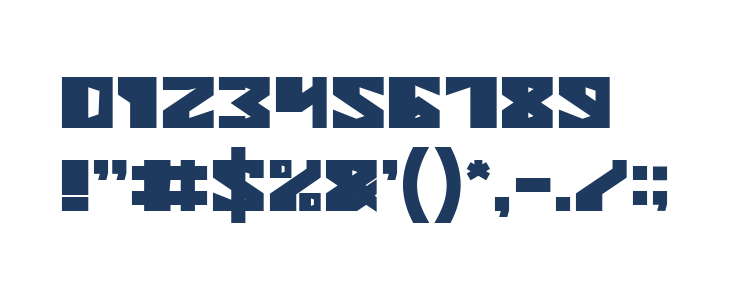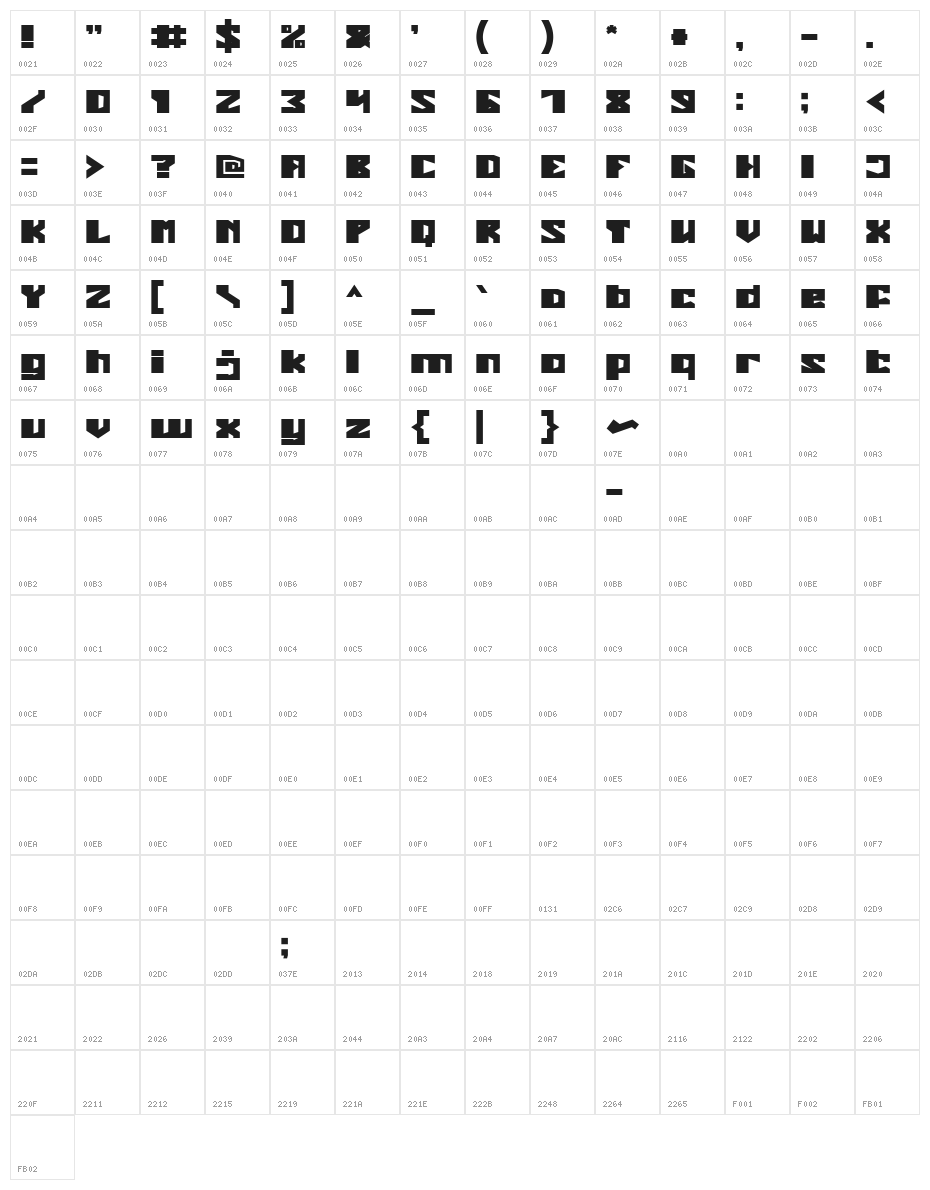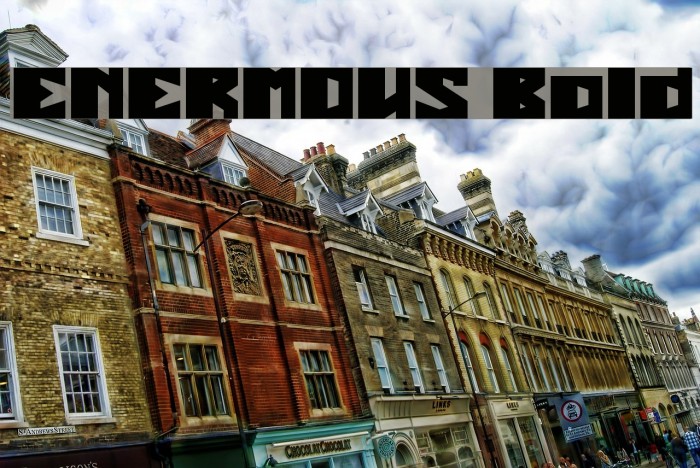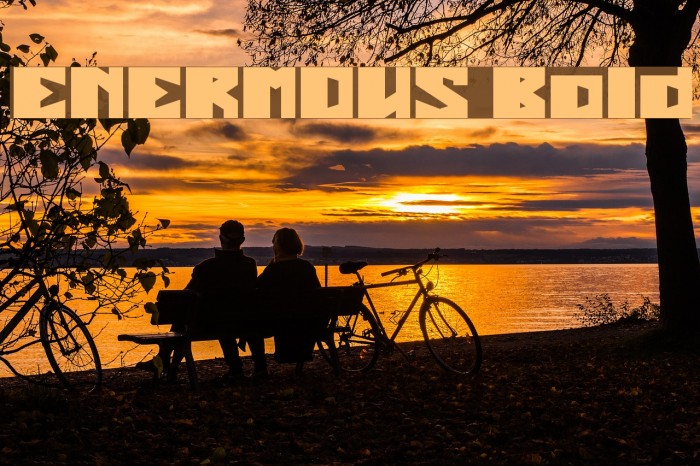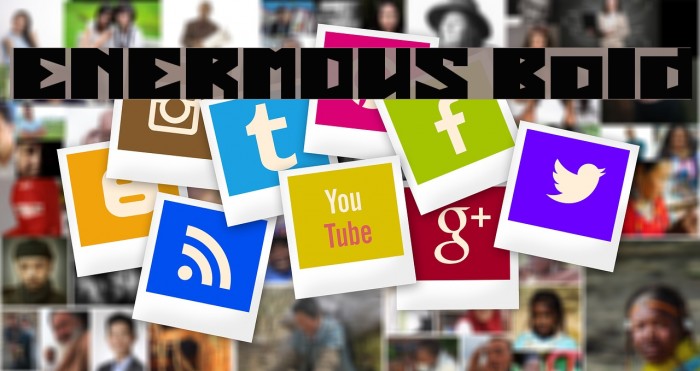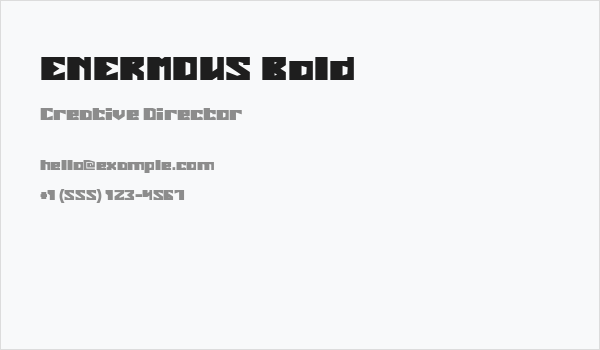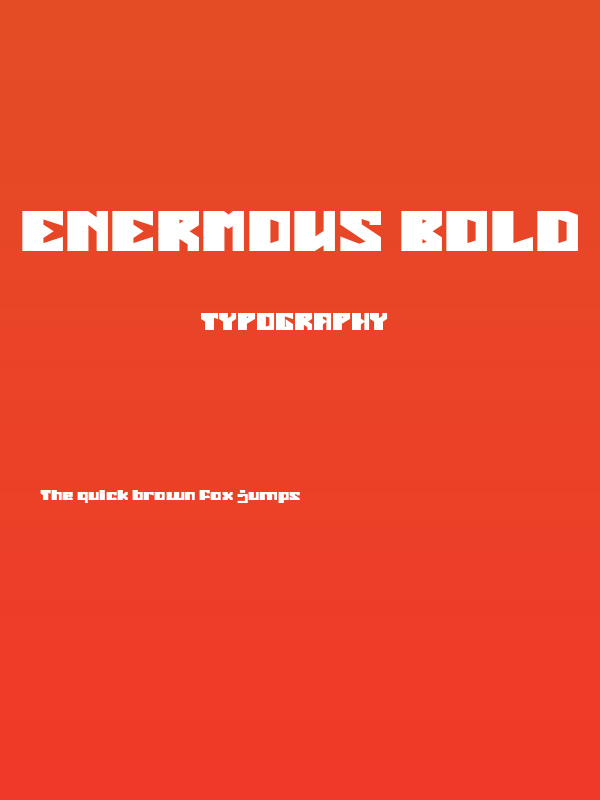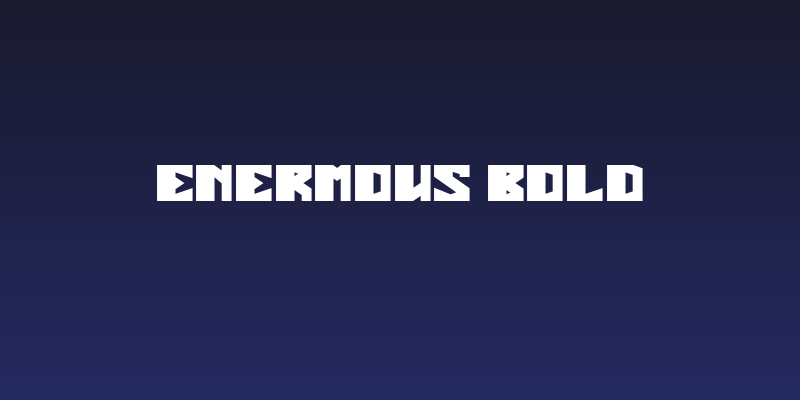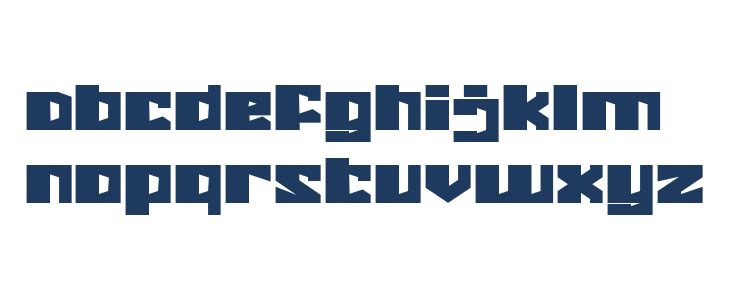
ENERMOUS Bold Font
ENERMOUS Bold Description
This font features a bold, geometric design with sharp angles and a blocky appearance. The characters are constructed with a strong emphasis on straight lines and angular cuts, giving it a futuristic and industrial feel. The uppercase and lowercase letters maintain a consistent height, contributing to a uniform and cohesive look. The numerals and special characters are designed to match the boldness and angularity of the alphabet, ensuring a seamless integration across all text elements. This font's unique style makes it stand out, ideal for projects that require a strong visual impact.
| Proposed Projects | Ideal for branding, posters, video game graphics, and any project needing a bold, modern look. |